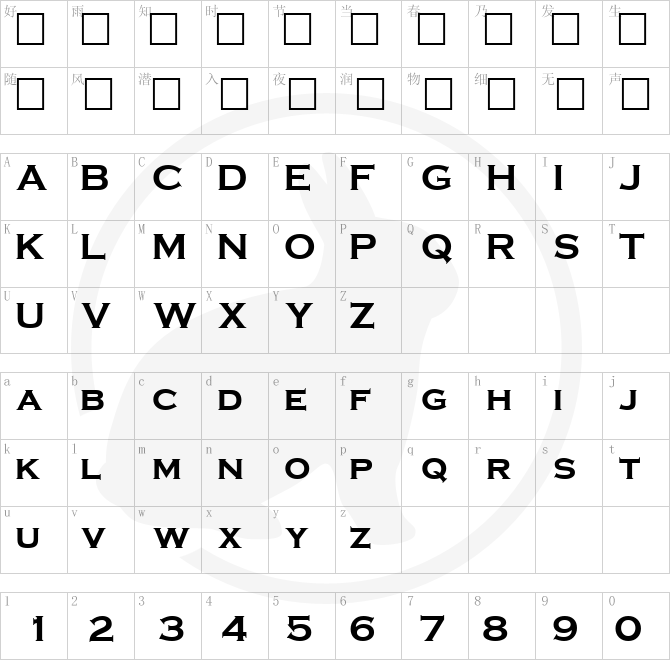
- Font Name:QTGraveure
QTGraveure-Bold.ttf is a very beautiful artistic font, QTGraveure-Bold.ttf is widely used in the design and printing of various books and pictures,QTGraveure-Bold.ttf has a strong visual impact,QTGraveure-Bold.ttf is a commonly used font in newspapers, magazines and books, and is used in posters, e-commerce Poster design, store design, logo design, font design and other fields.QTGraveure-Bold.